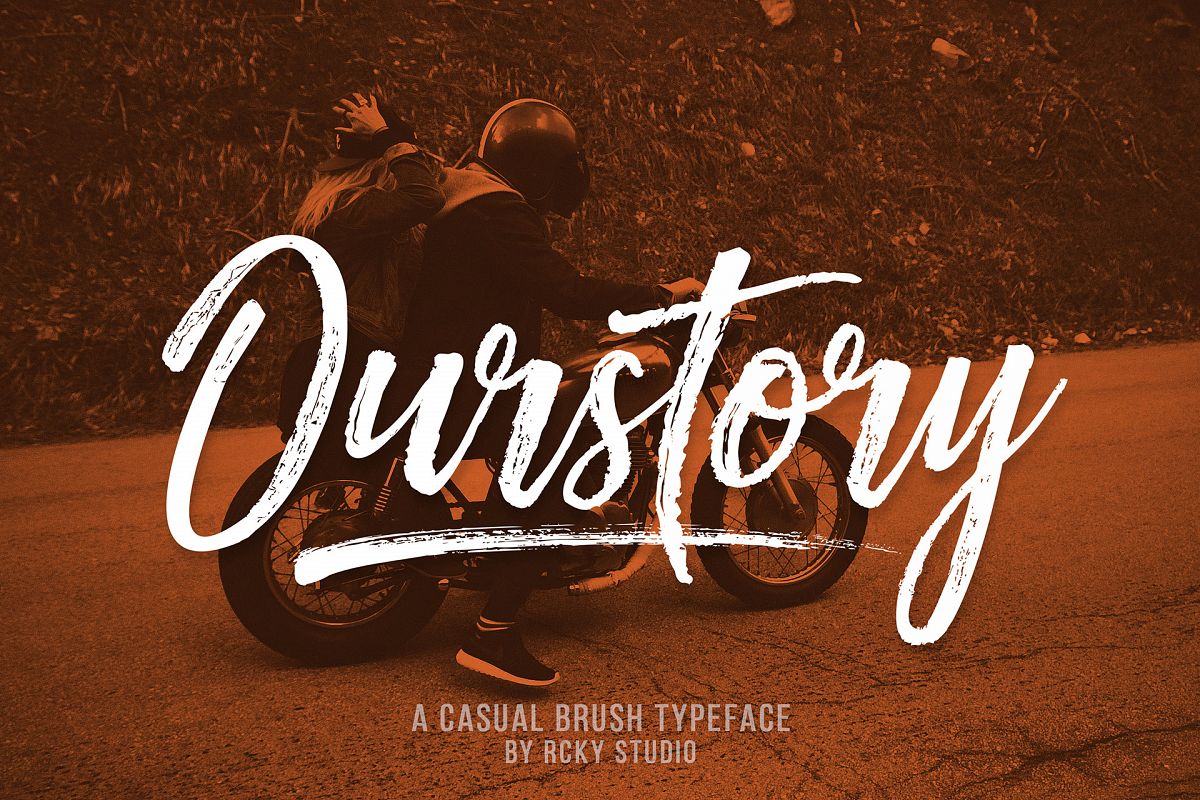
Ourstory Font Duo
Ourstory Extra
Ourstory Sans
Ourstory Uprigh
Ourstory
Ourstory Alt
Ourstory Font Duo
Ourstory is textured brush font, contemporary approach to design, handmade natural with an irregular baseline. Also with additional Ourstory Sans and Swashes Extra. Harmony to be combined with Ourstory Script. Suitable for use in title design. Such as apparel, invitations, books tittle, stationery design, quotes, branding, logos, greeting card, t-shirt, packaging design, poster and more. Ourstory Font includes a complete set of uppercase and lowercase letters, as well as multi-language support, numbers, punctuation, ligatures.